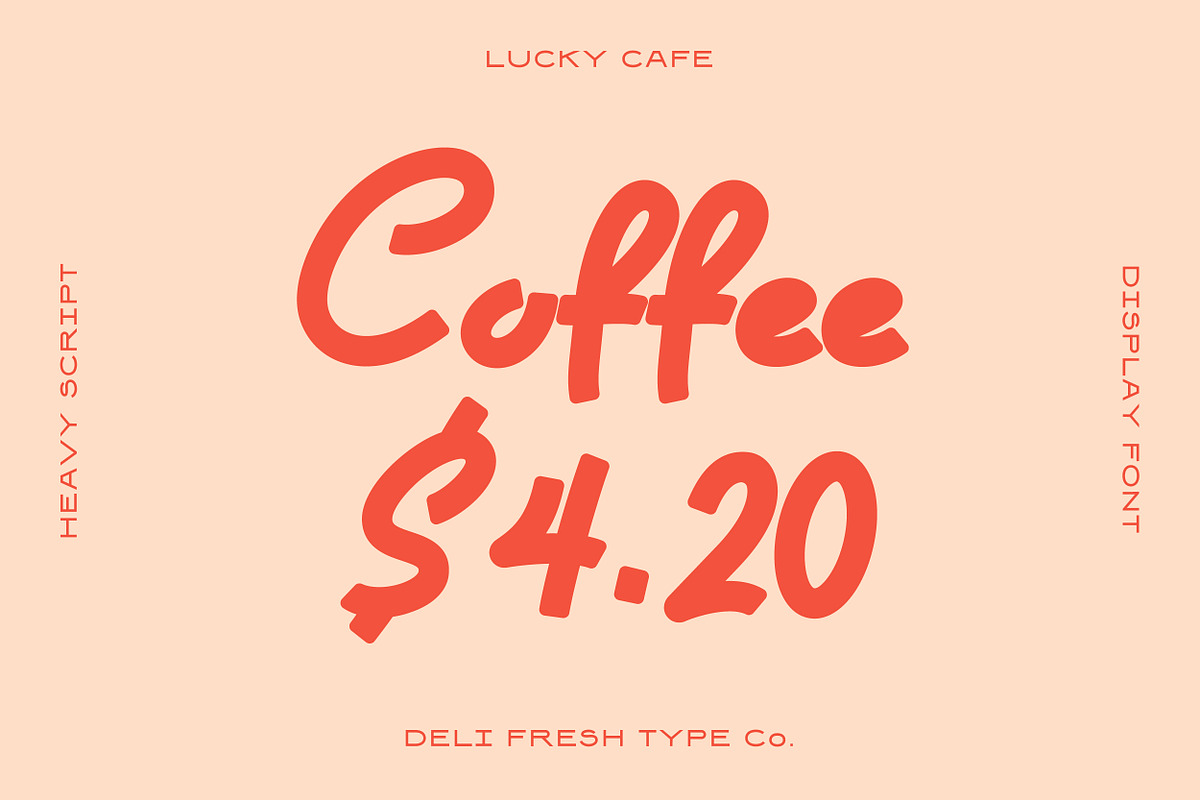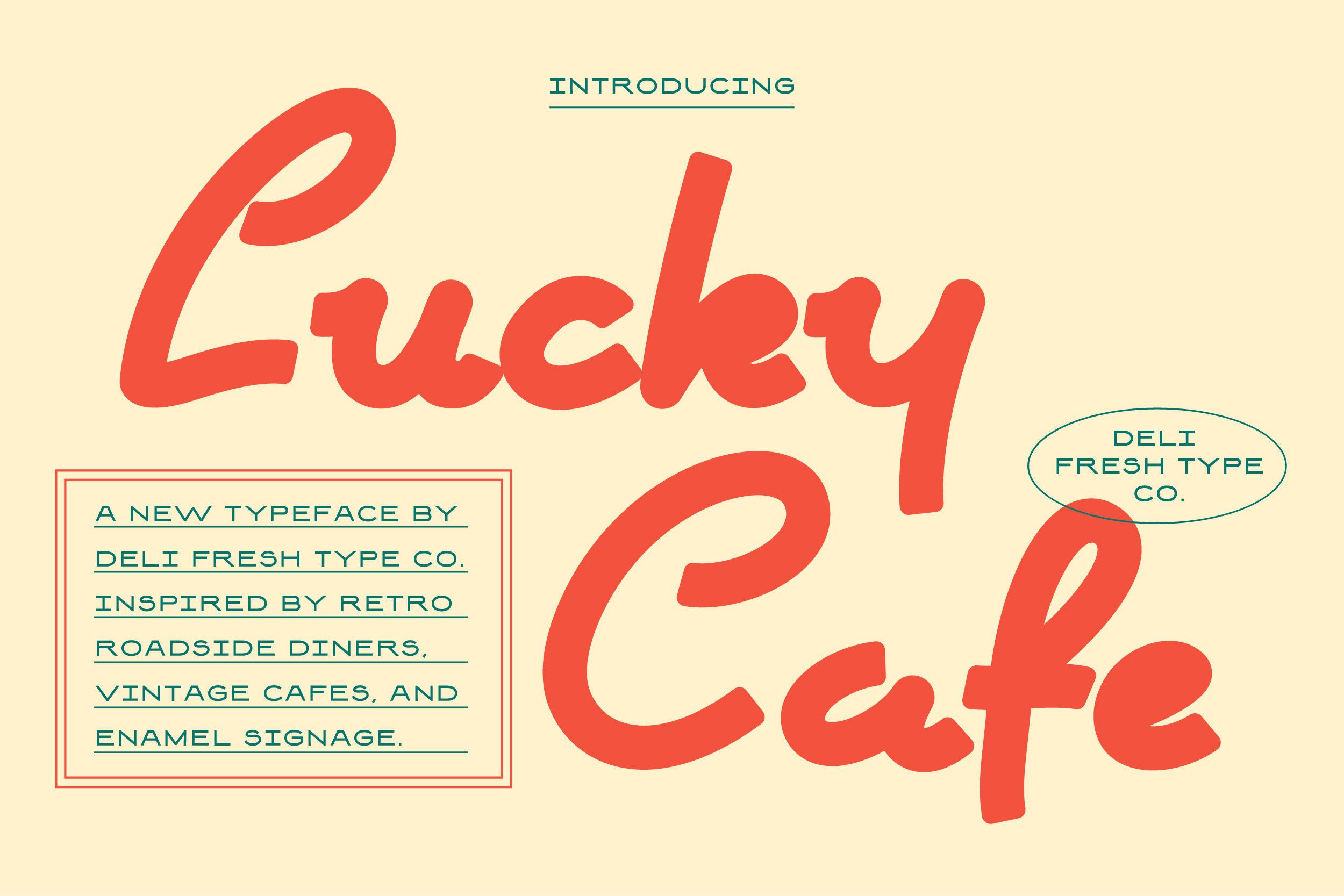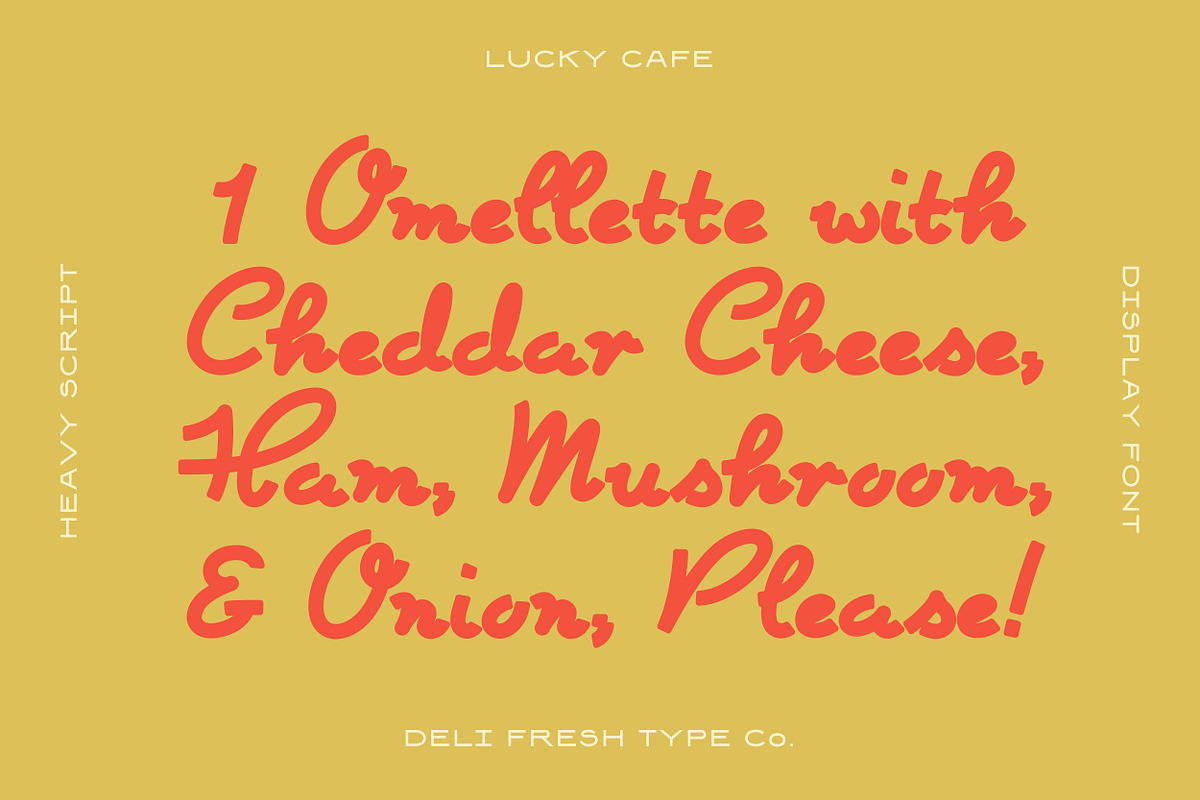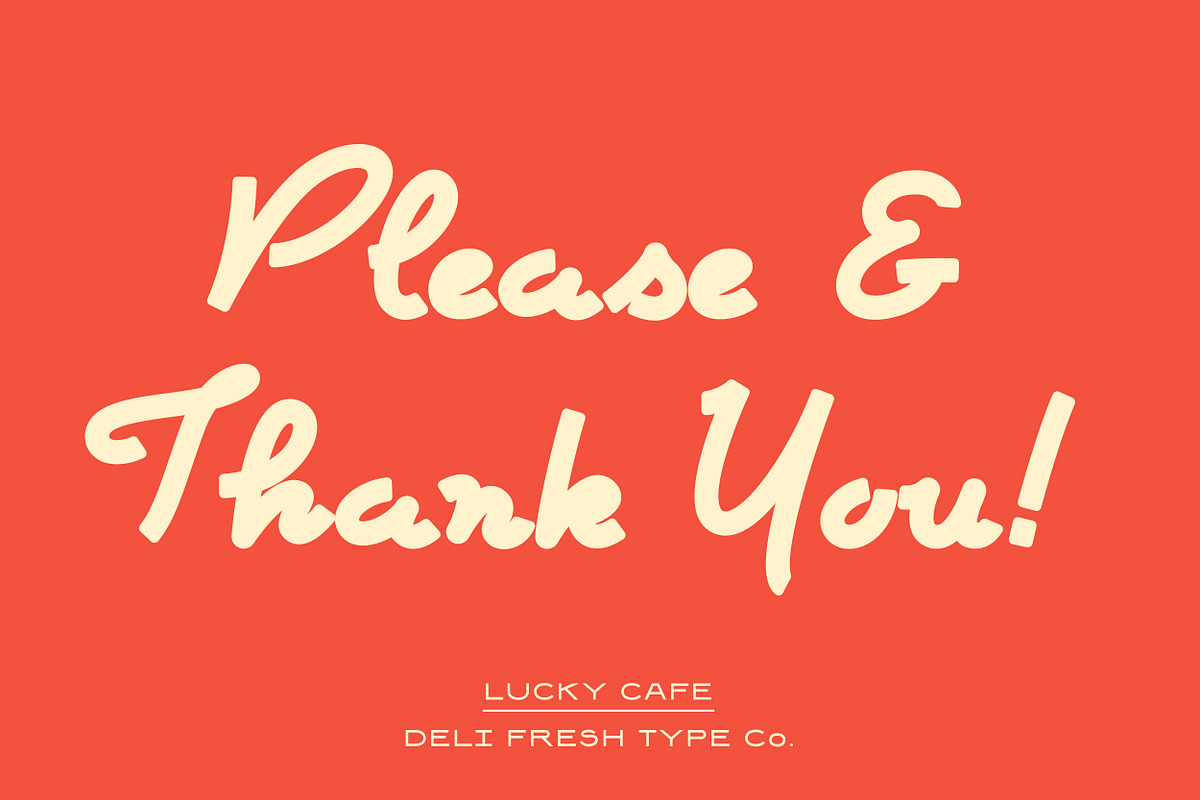
Lucky Cafe: A Retro Script Font
A cool display typeface inspired by retro roadside diners, vintage cafes and old enamel signage.
This hefty font comes with uppercase letters, lowercase letters, numerals, and a smattering of special characters.